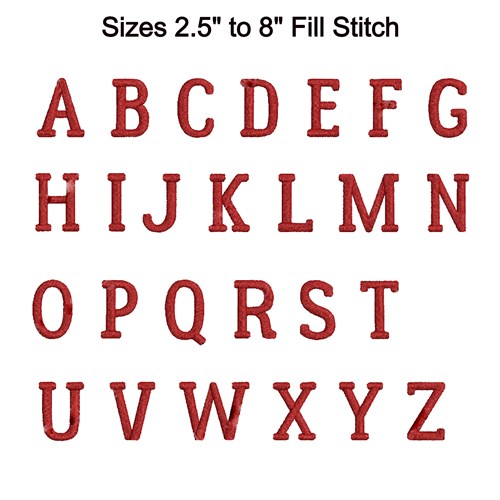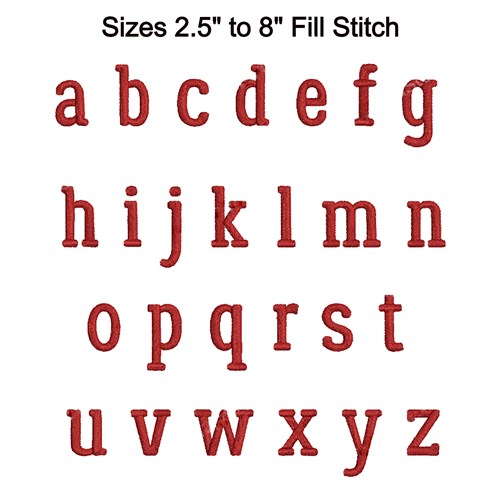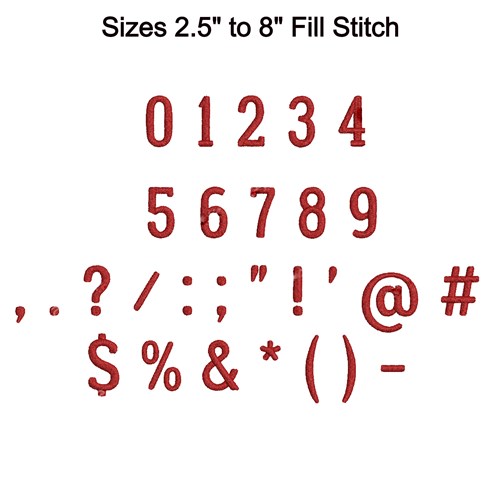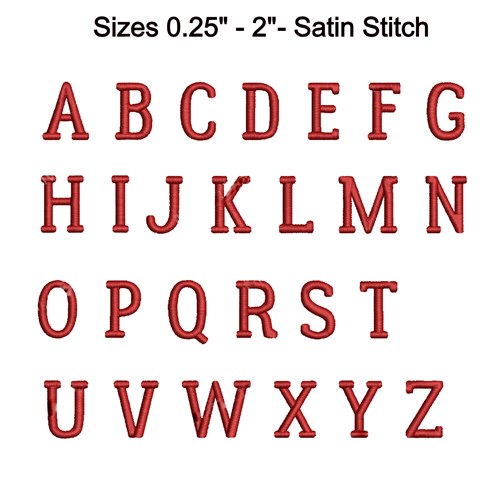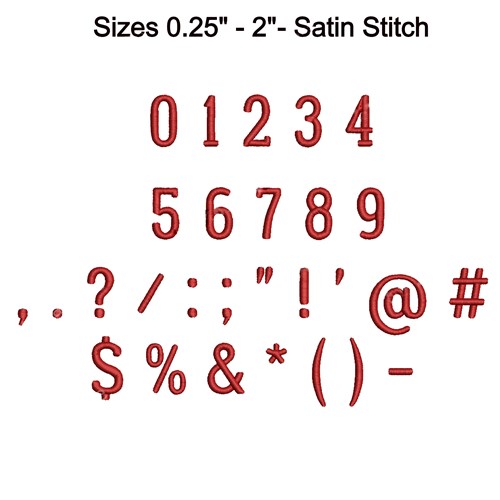
Artsy Knots is happy to present Formal Serif Font Embroidery Font - Elegant Formal Serif Lettering - Home Format - PES, DST & 6 formats machine embroidery font which has The formal serif style presents a sophisticated appearance, perfect for monograms and upscale embroidery projects on cushions or table linens. This machine embroidery font is available in PES, DST, and 6 other formats. included. If you would like to view more embroidery fonts and alphabets please search our embroidery fonts page.